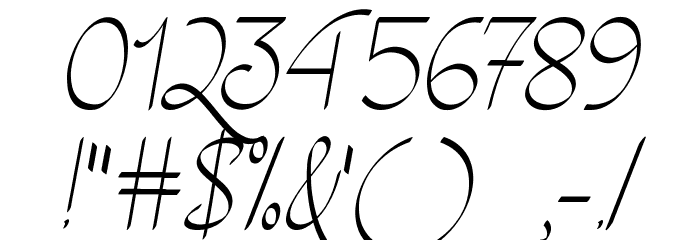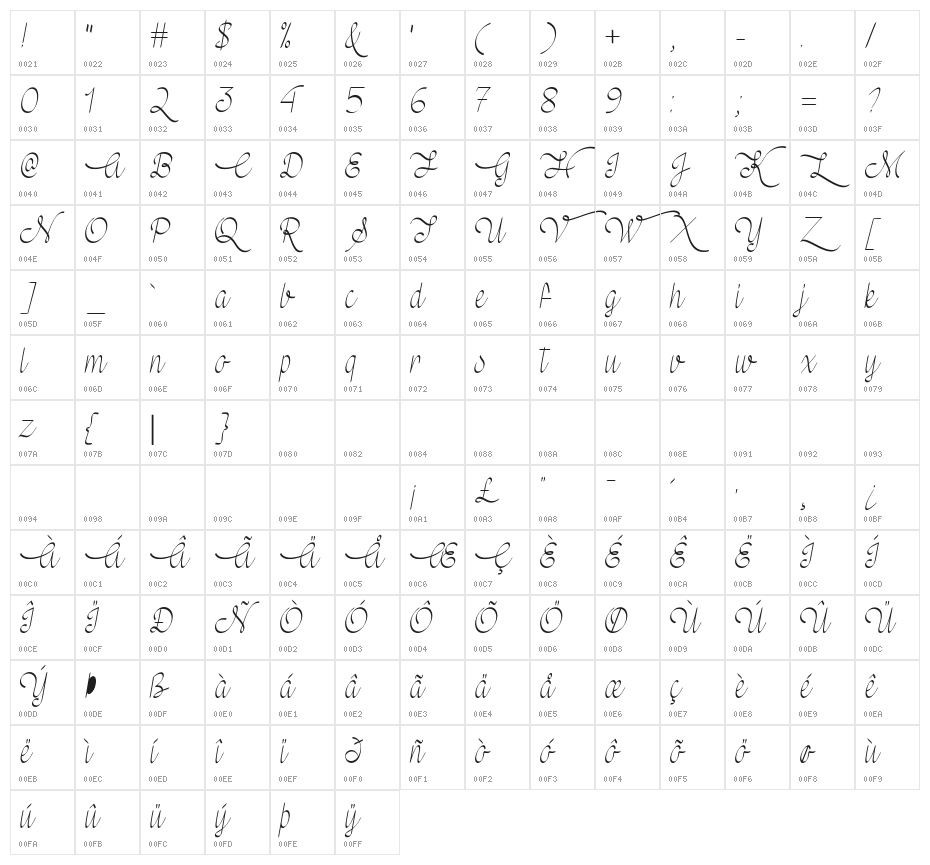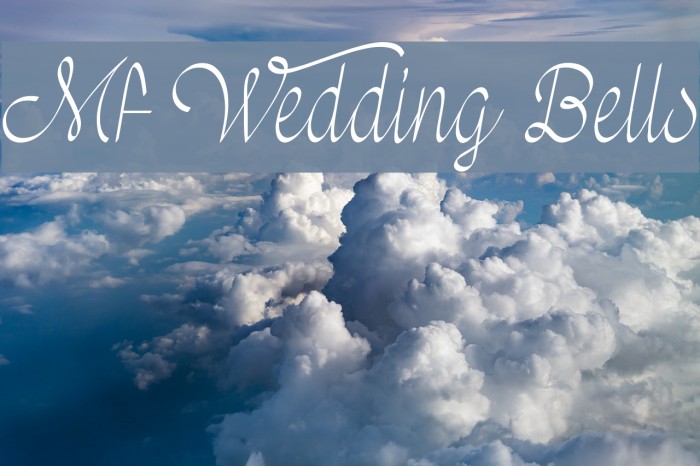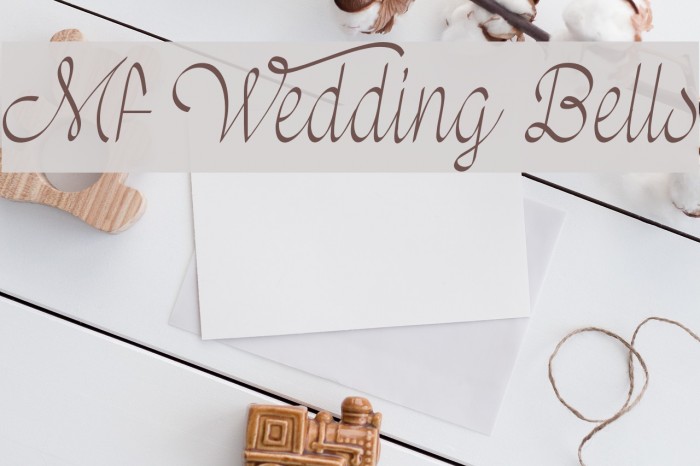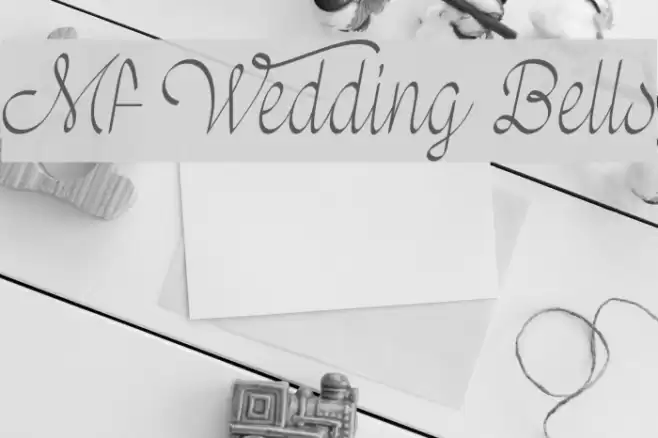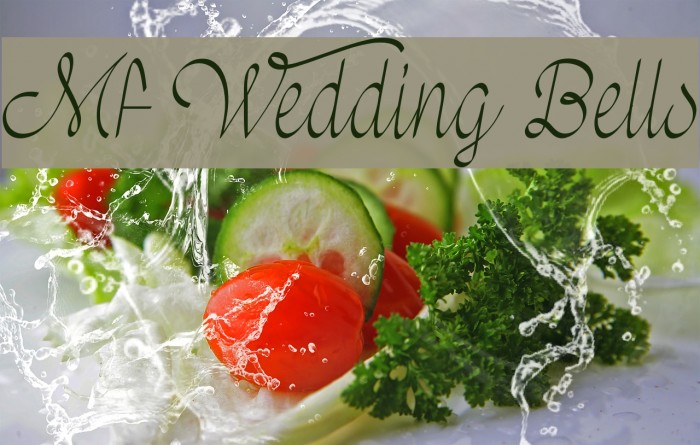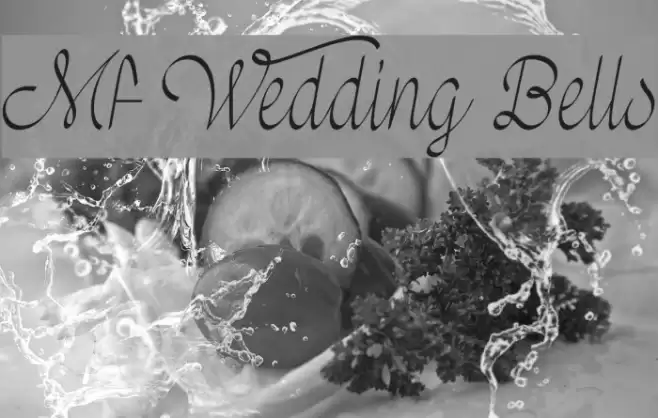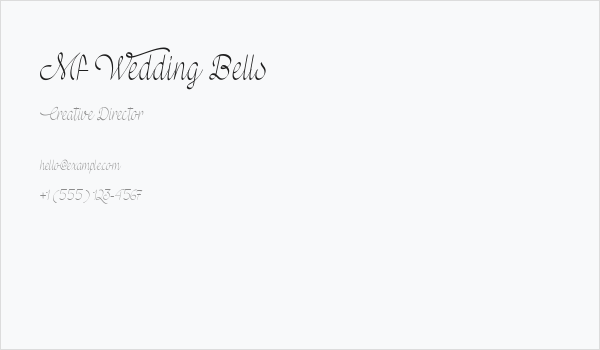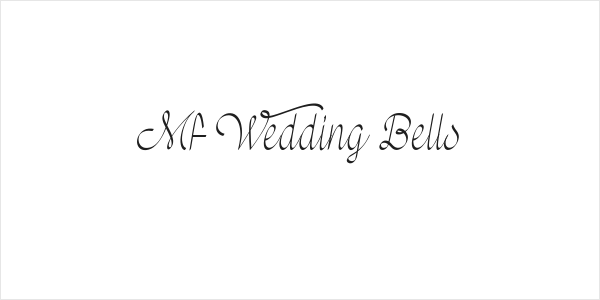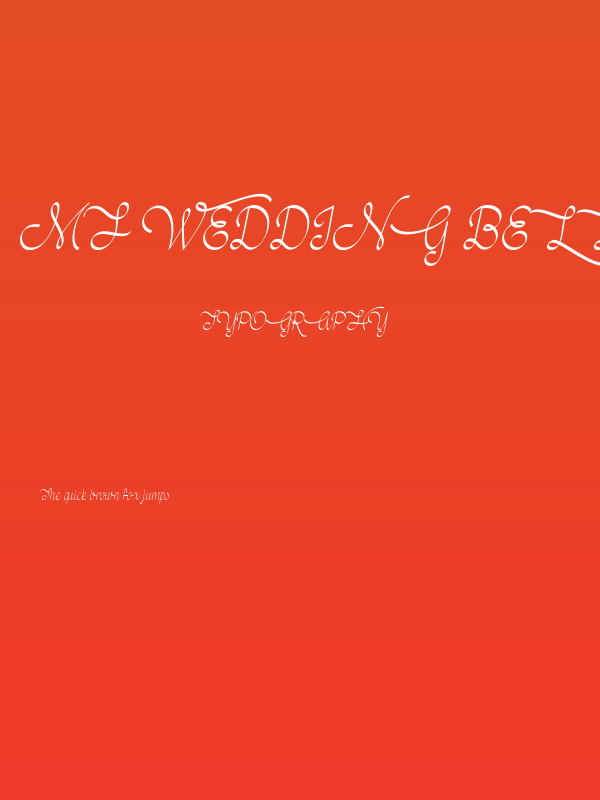
Mf Wedding Bells Font
Mf Wedding Bells Description
This elegant script font features flowing, interconnected letters with a graceful and sophisticated appearance. The uppercase letters are ornate, with sweeping curves and loops that convey a sense of formality and celebration. The lowercase letters maintain a consistent style, with smooth transitions and a slight slant that enhances readability. Numbers and special characters are designed to complement the overall aesthetic, maintaining the same fluidity and elegance. This font is ideal for creating a romantic and luxurious feel, making it perfect for wedding invitations, formal event programs, and upscale branding.
| Use Case | Headlines, Invitations, Branding |
| Proposed Projects | Wedding invitations, formal event programs, upscale branding, luxury product packaging. |